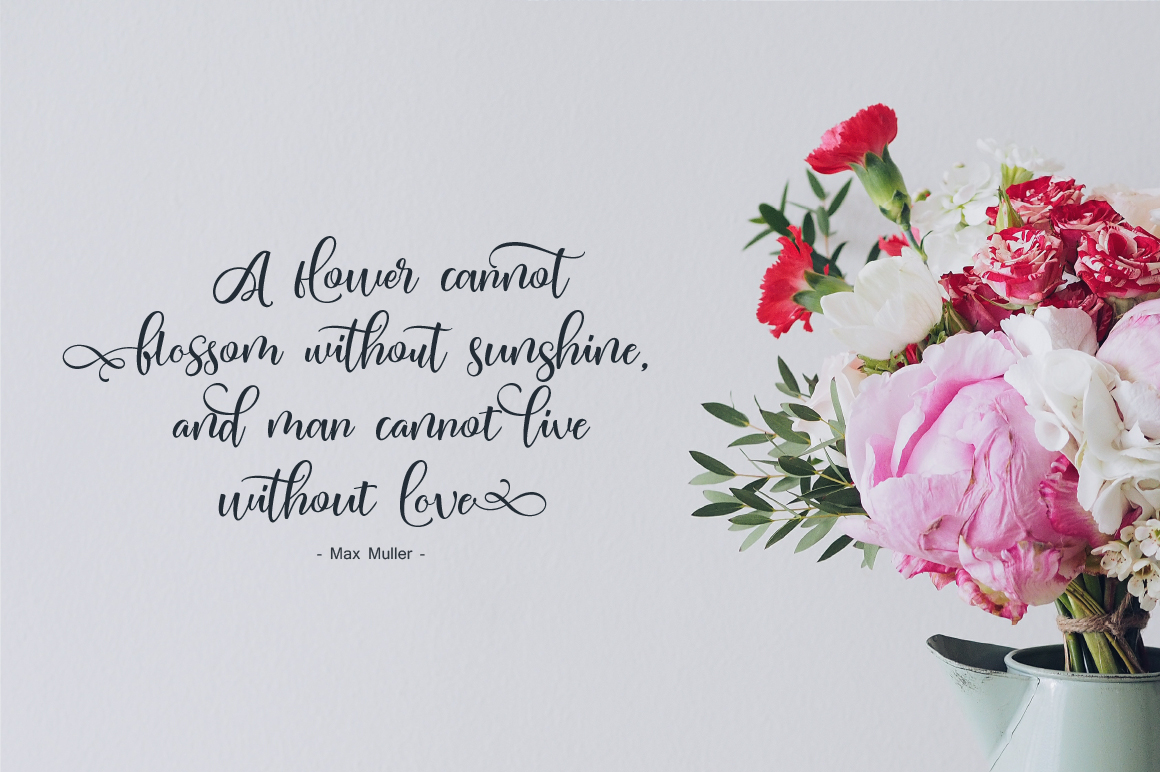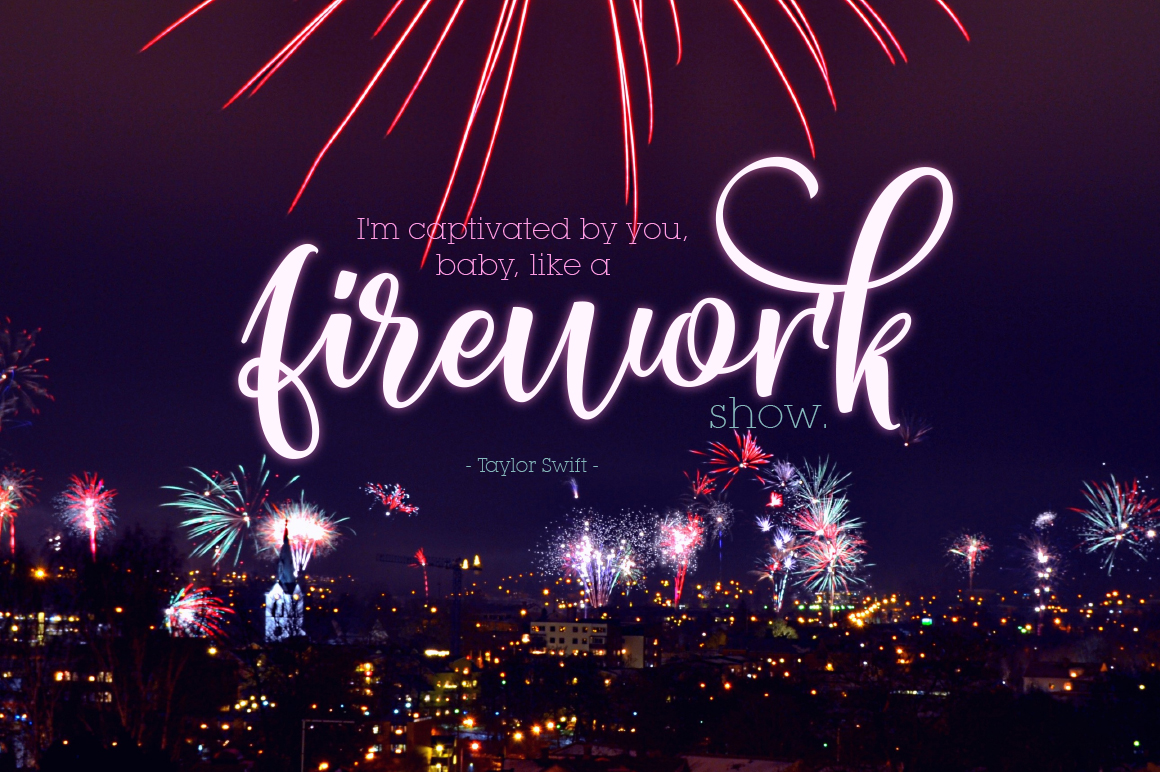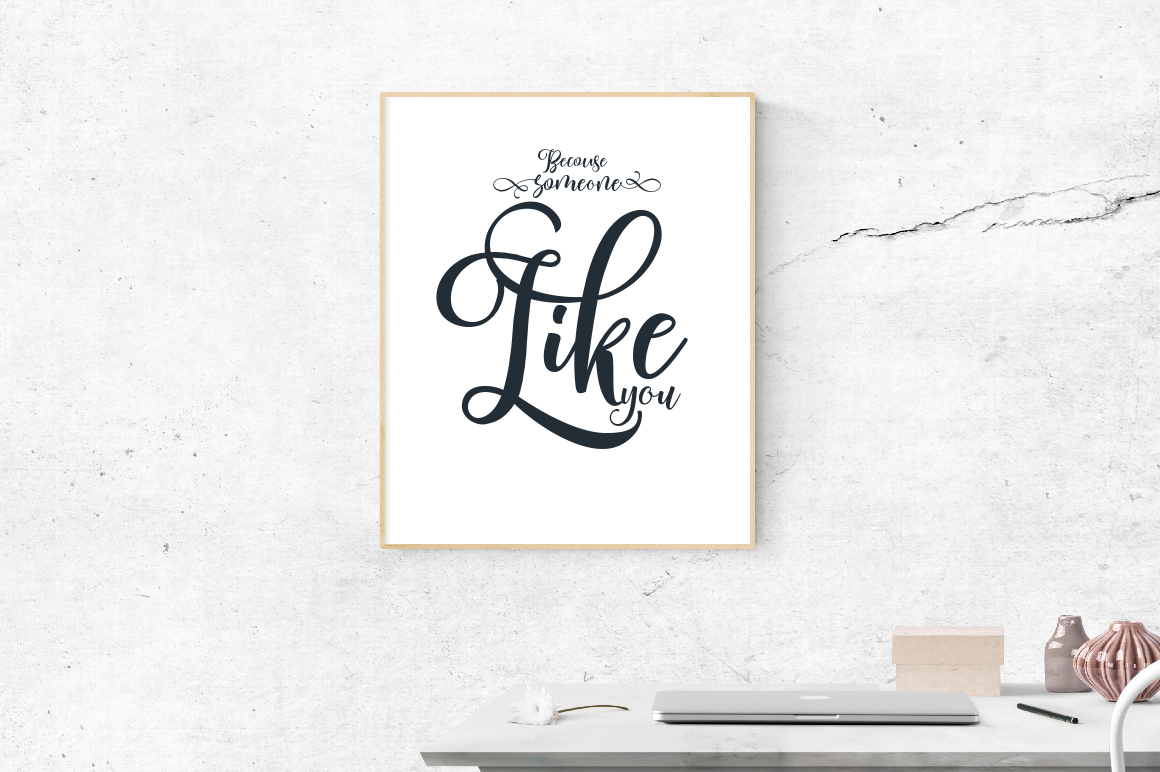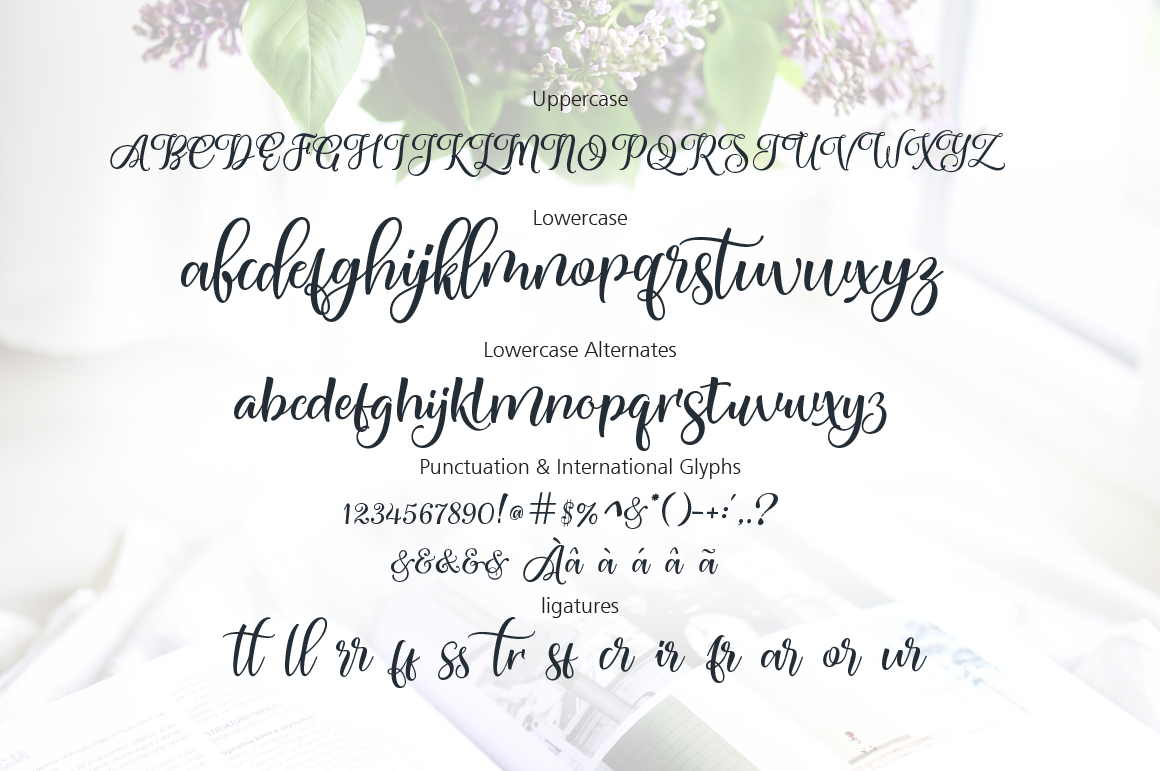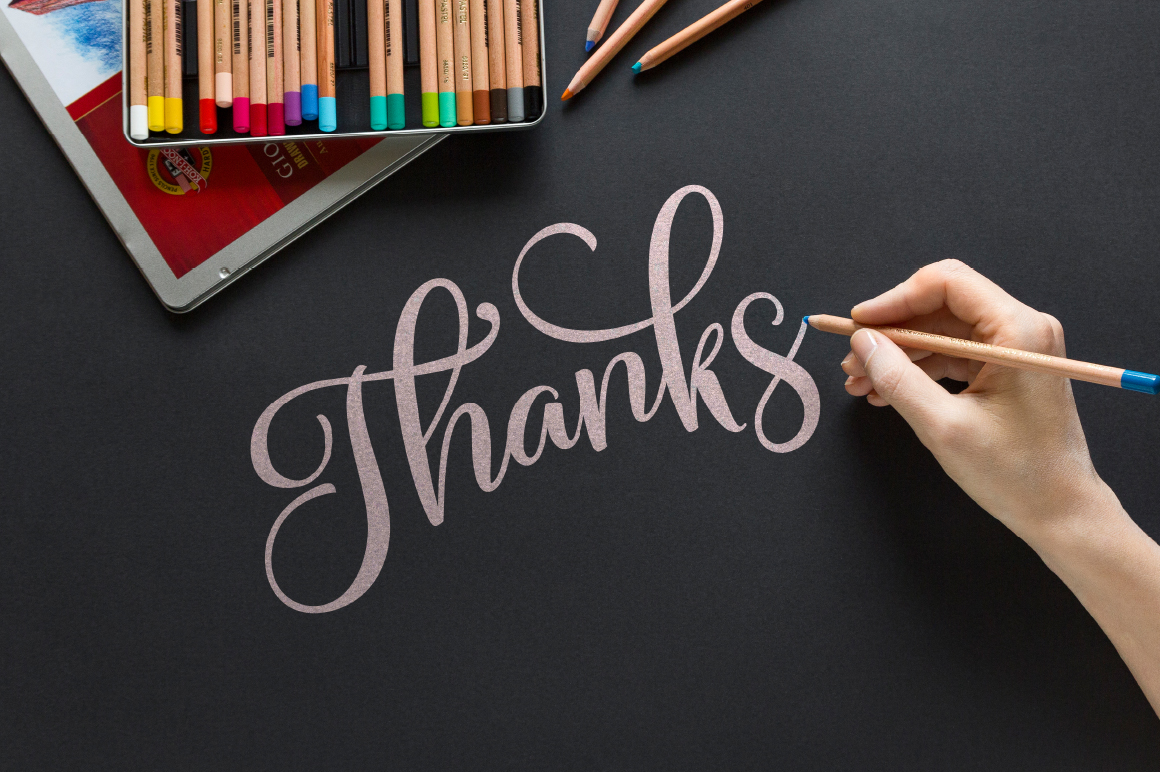
Malficent Font
About Malficent Font
Malficent is a fluid, flexible script font that can be used for a huge range of different projects. It’s perfect for adding a personal touch to your designs.